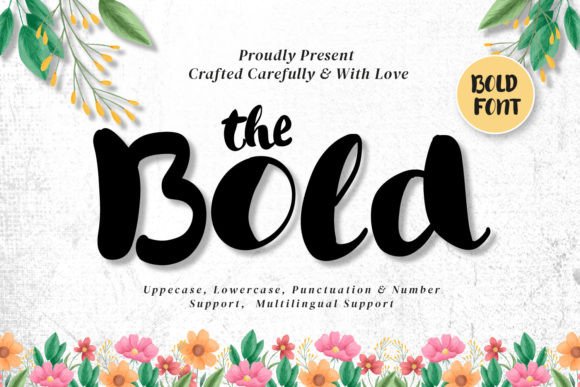
**Unleash the Enchantment of "The Bold" Script Font: A Stroke of Elegance for Your Design Masterpieces**
In a world of digital expression, where words dance across screens like fleeting whispers, there exists a font that transcends the ordinary, captivating hearts and igniting imaginations—introducing "The Bold" script font, the epitome of grace and elegance.
Crafted with meticulous care by Naharstdio, this script font is a testament to the power of typography, its every curve and stroke a testament to the artistry that breathes life into letters. Its delicate tendrils and fluid lines evoke a sense of timeless beauty, reminiscent of handwritten notes penned with heartfelt emotion.
With each character meticulously designed, "The Bold" script font beckons you to explore a world of creative possibilities. Whether you're crafting wedding invitations that exude romance, designing product packaging that whispers of luxury, or creating social media posts that demand attention, this font is your trusted ally.
Immerse yourself in the allure of "The Bold" script font and watch as your designs flourish with sophistication and charm. Let its graceful strokes guide your words, transforming them into visual masterpieces that resonate with elegance and allure.